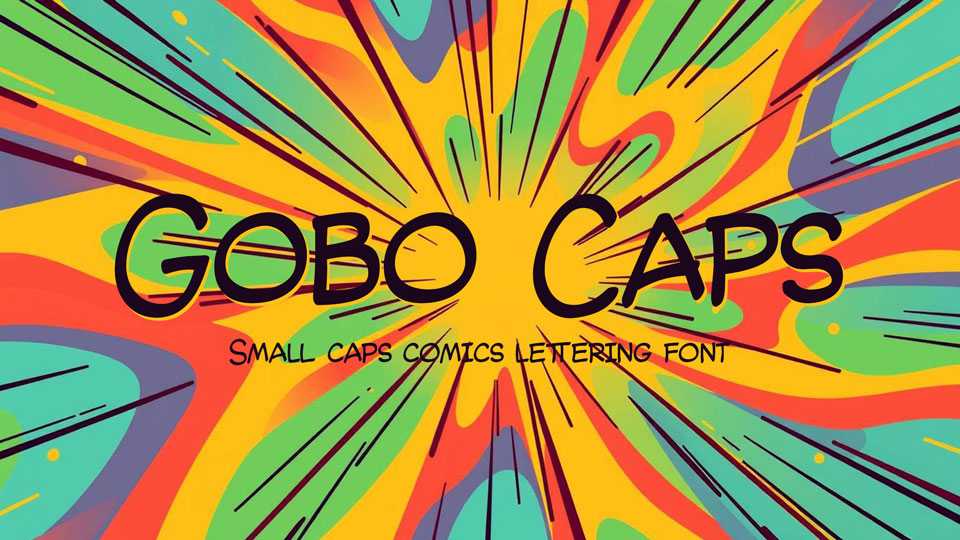
Download Gobo Caps font, an OpenType Unicode typeface simulating professional manual lettering in the style typical of comics and graphic novels, specifically using a D-type Speedball calligraphic nib.
Designer: Terhi Mäkinen